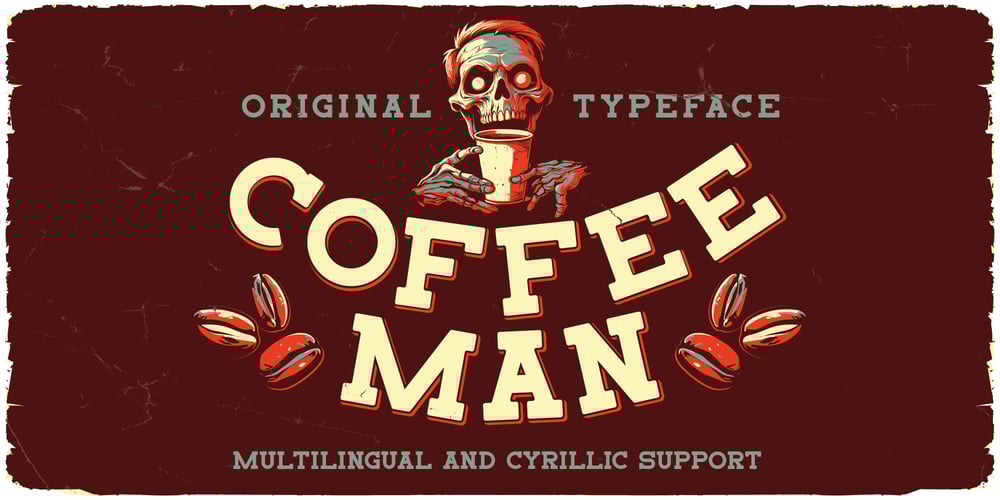
Coffee Man Font Family was designed by Oleg Voznyy and published by Vozzy. Coffee Man contains 4 styles and family package options. Infuse a vintage elegance into your projects with the “Coffee Man” font. This unique typeface carries the ambiance of old cafes and coffee shops, adding a special charm and character to your work. Inspired by mid-20th-century design, “Coffee Man” exudes an antique charm and sophistication, perfect for giving your projects a nostalgic touch. The font supports multiple languages, ensuring its suitability for projects with a global audience.